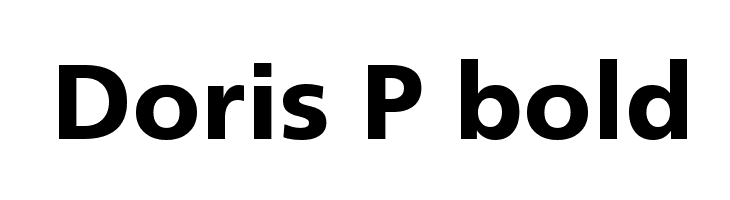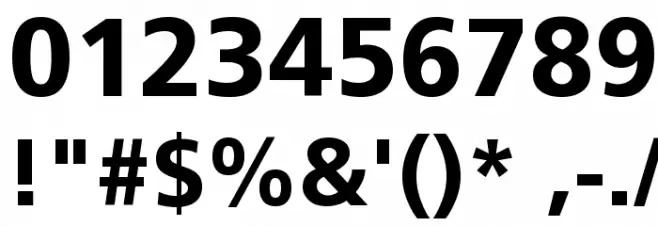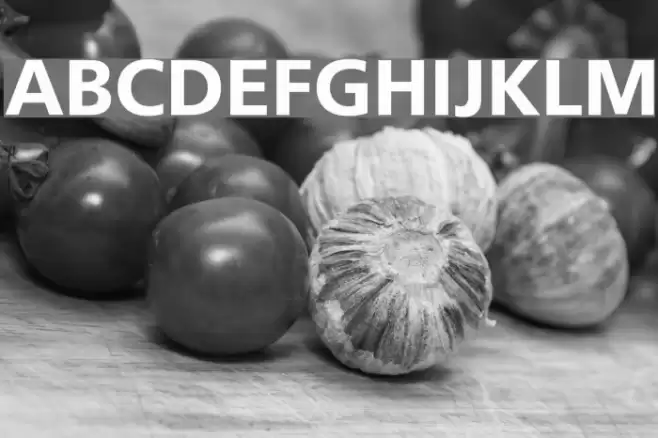
Doris P bold Font
Doris P bold Description
This font features a bold and robust design, characterized by thick strokes and a strong presence. The characters are well-defined with a modern sans-serif style, offering a clean and professional look. The uppercase letters are uniform in height, while the lowercase letters maintain a consistent baseline, enhancing readability. The numerals are equally bold, ensuring they stand out prominently. Special characters are designed with the same boldness, providing a cohesive appearance across all glyphs. The overall design is versatile, suitable for various applications where clarity and impact are essential.
| Use Case | Headlines, Logos, Advertising |
| Proposed Projects | Ideal for branding, advertising, headlines, and digital content where a strong visual impact is needed. |